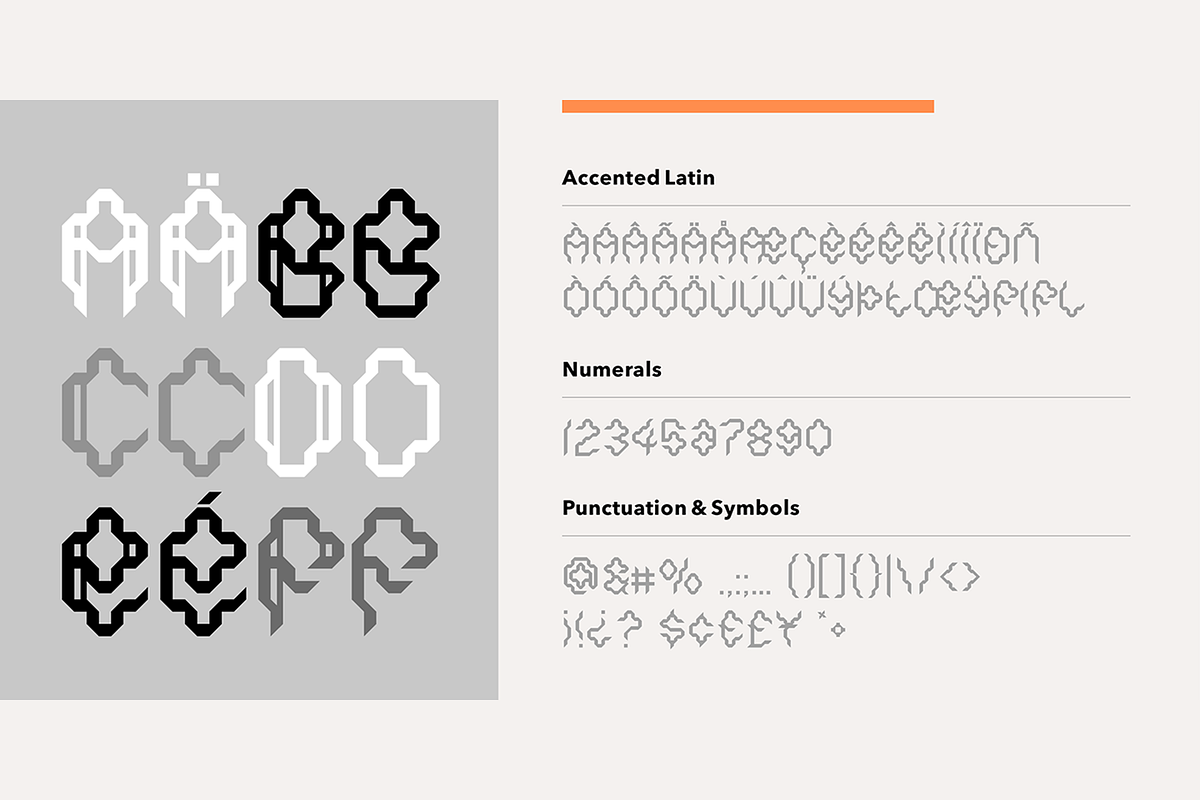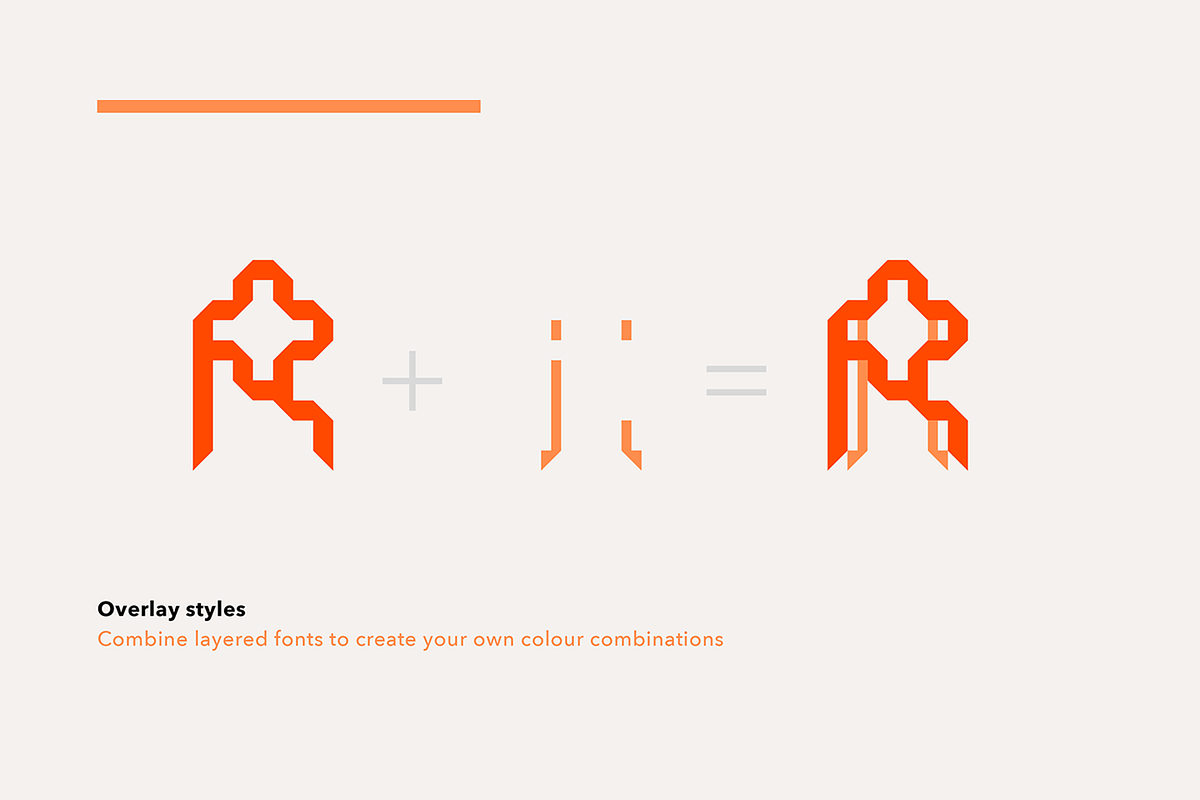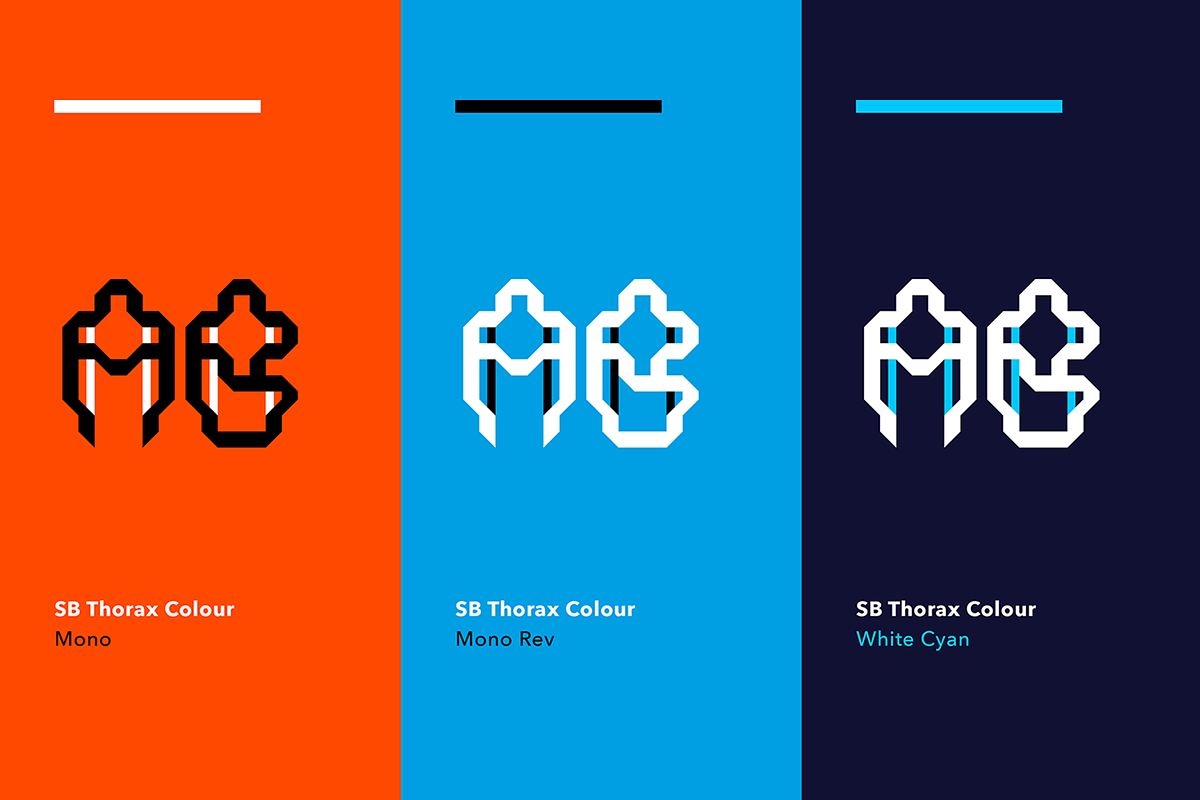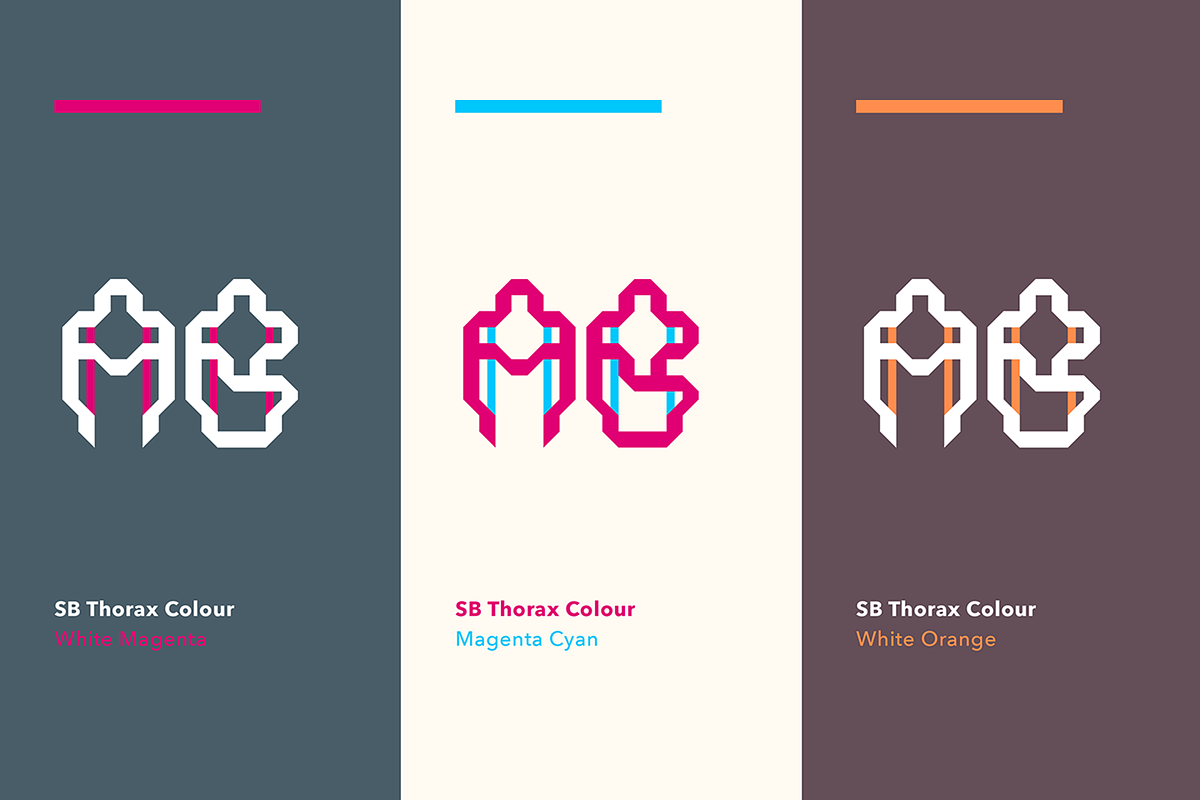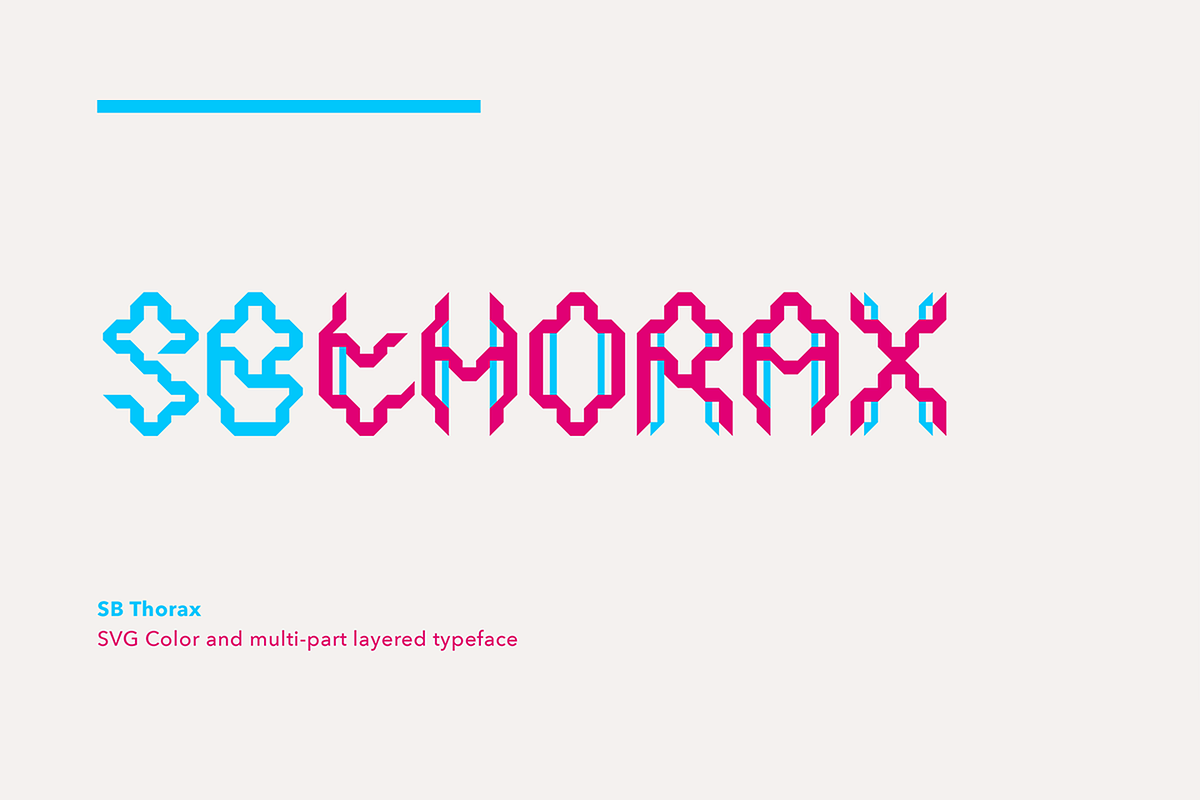
Thorax - Sci-fi font
SB Thorax is a futuristic, angular typeface with strange, blackletter influenced letterforms. It is based on a triangular grid and has a distinctly alien, insectoid flavour that makes it well suited to science fiction, gaming and technology themed projects.
This capitals-only typeface consists of three styles which are designed to be combined and layered with one another, along with a number of SVG color versions of the font. Overlaying the base font with other versions of the font allows the designer to create letterforms with different coloured sections or different transparencies.
SB Thorax can be categorised as a decorative display typeface and its unusual, detailed and often difficult to read letterforms mean it is best suited for poster headlines and other uses where a distinctive style is preferred in order to create maximum visual impact.